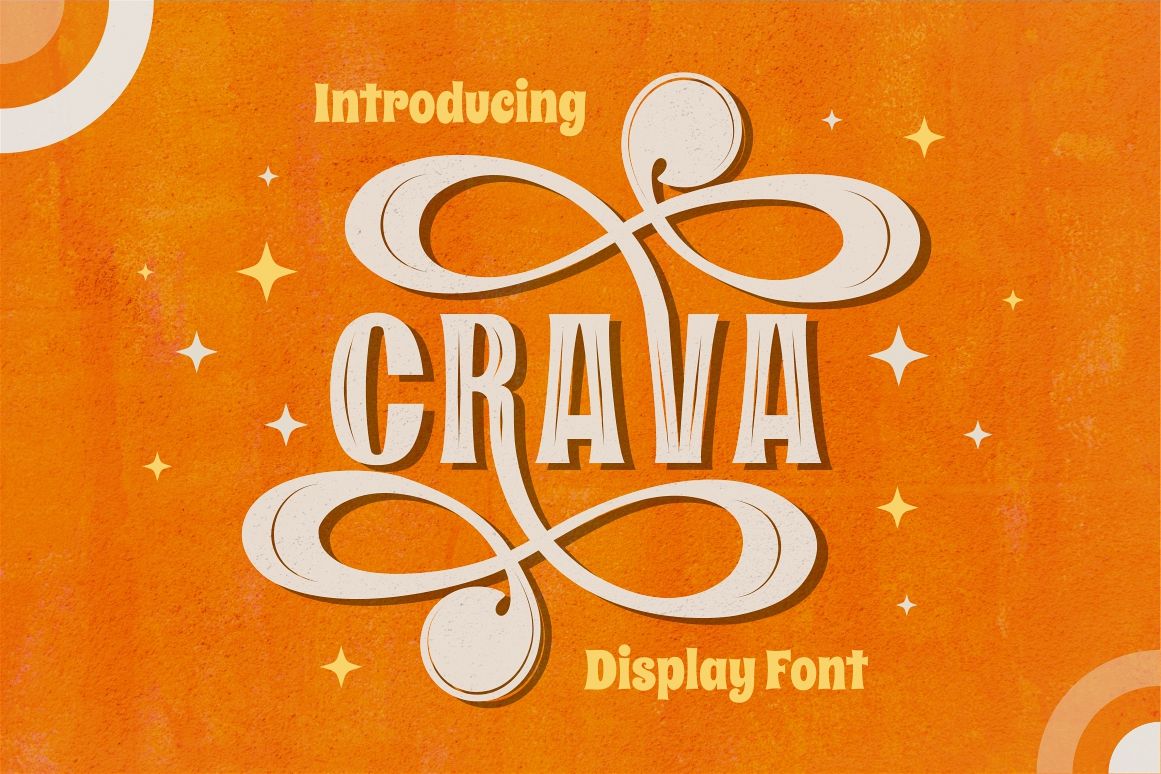
CRAVA is a Vintage Display font. CRAVA perfect for logo, headings, branding, magazine, cover album, book cover, movie, apparel design, quotes, invitations, flyer, poster, greeting cards, product packaging, printed quotes, and many more.
Come with open type feature with a lot of alternates, its help you to make great lettering.